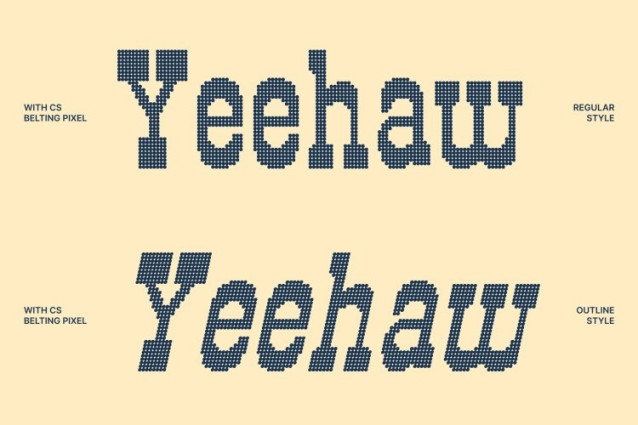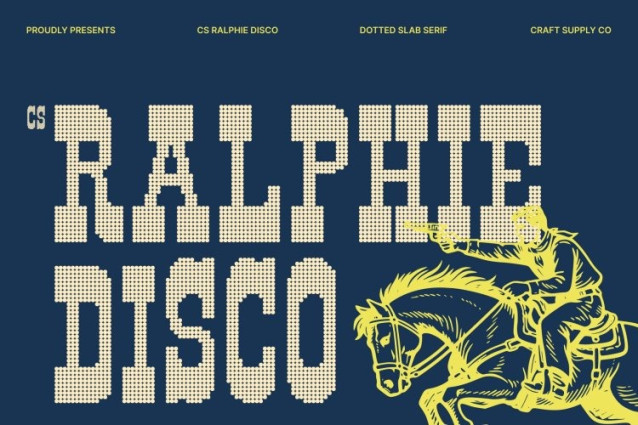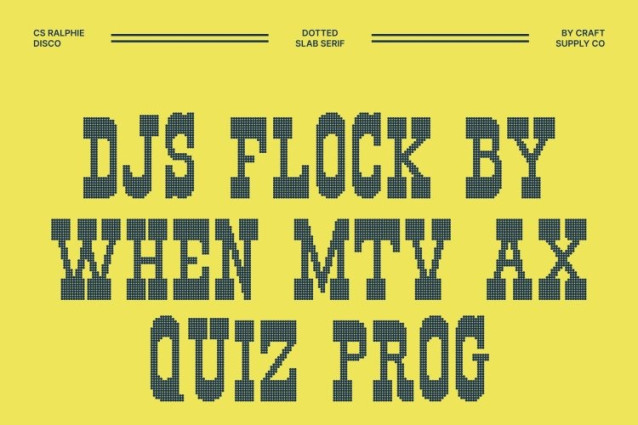
CS Ralphie Disco Font
CS Ralphie Disco Font – This is a striking western-inspired display font that blends the rugged charm of frontier typography with a vibrant disco-style dotted texture. Inspired by vintage saloon signage and classic Western posters, its bold slab serif structure delivers a strong and grounded presence. The added dotted sparkle introduces a lively visual rhythm, creating a unique fusion of rustic character and festive flair.
Reverse Contrast for Dramatic Impact
The reverse contrast design gives the font a distinctive rhythm, shifting visual emphasis in unexpected ways. This unconventional weight distribution forms a memorable silhouette that enhances readability while adding personality. Combined with the shimmering dotted texture, each letter gains extra movement and visual intrigue.
Slab Serifs with Rugged Strength
The sturdy slab serifs reinforce the font’s western heritage, echoing the look of carved wooden signs and old frontier lettering. These strong structural elements anchor the design, while the disco-inspired dots introduce a playful sparkle that modernizes the traditional aesthetic.
Perfect for Western, Vintage, and Bold Branding
This font shines in posters, branding, packaging, logos, and vintage-inspired projects. Whether used for Western-themed graphics, music artwork, event promotions, or bold editorial headlines, it brings a distinctive mix of cowboy grit and disco energy to every design.